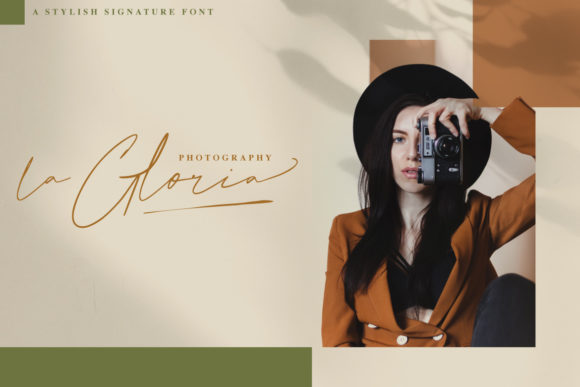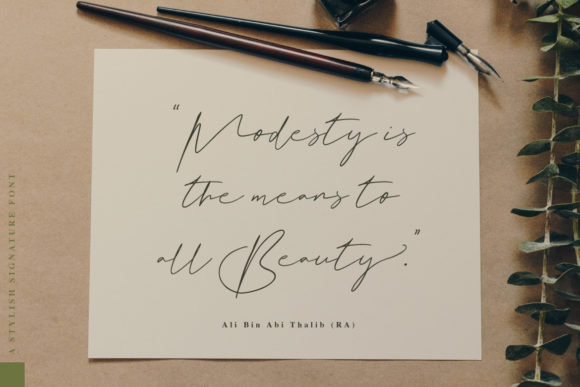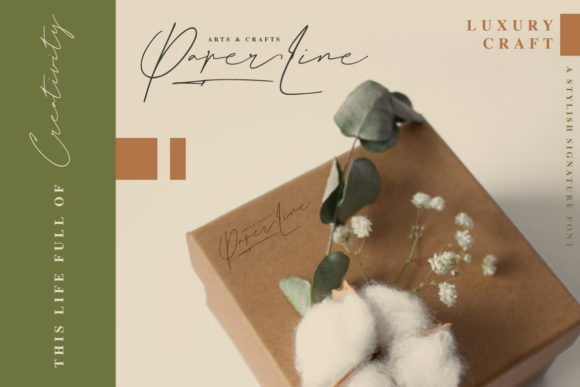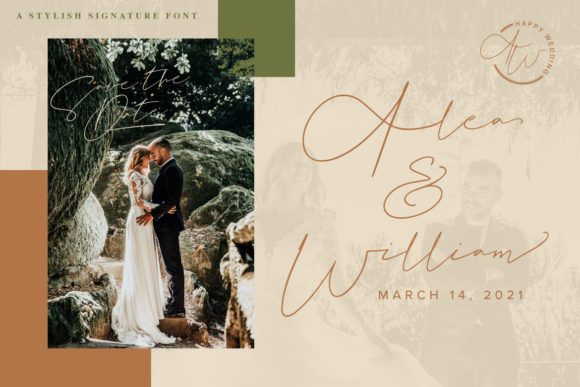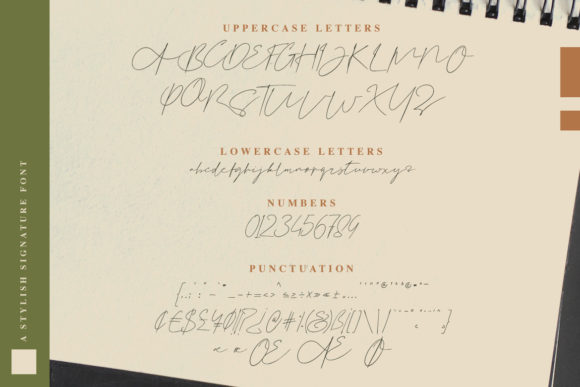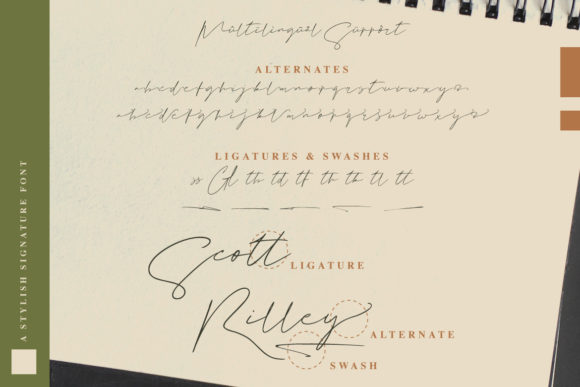
The Perfect Script for Your Next Design Project
Have you ever been brainstorming a design idea, but the perfect font has been eluding you? Maybe it’s the delicate curves, the elegant flair, or the touch of sophistication that’s been missing from your creation. Whatever the case, we’re here to introduce you to a font that’s sure to elevate your designs to the next level: Bethricia Scarlett Font.
Bethricia Scarlett Font is a stunning script font that’s perfect for adding a touch of personality to your designs. With its PUA encoding, you’ll have access to a wide range of glyphs and swashes, allowing you to customize your designs to perfection. Whether you’re creating wedding invitations, greeting cards, or logos, this font is sure to make your creations stand out.
Bethricia Scarlett Font Key Features
- Font Family: Bethricia Scarlett
- Unique Characteristics: Elegant script, cursive, and handwritten style with high-end feel, ideal for creative and artistic projects
Bethricia Scarlett Font Review
Overall, I was impressed by the Bethricia Scarlett Font. ✨ It’s a beautifully designed script font that’s perfect for adding a touch of elegance to your designs. Here are some things that I think work well:
- ✨ Unique and stylish design: The Bethricia Scarlett Font has a distinctive, handwritten feel that sets it apart from more generic script fonts.
- ✨ Wide language support: This font supports a wide range of languages, making it a great choice for global designs.
- ✨ Versatile: The Bethricia Scarlett Font works well in a variety of contexts, from titles and headings to body text and quotes.
However, there are some limitations to be aware of:
- ⚠️ Limited character set: While the font supports many languages, it may not include every character you need, particularly for languages with complex scripts.
- ⚠️ May not be suitable for small text sizes: The Bethricia Scarlett Font is best used at larger sizes, as it can become difficult to read at smaller sizes.
Overall, I think the Bethricia Scarlett Font is a great addition to any designer’s toolkit. With its unique design and wide language support, it’s a versatile and stylish choice for a wide range of projects.
Bethricia Scarlett Font is ideal for creating elegant and sophisticated designs, including:
Magazine and book covers
Wedding and event branding